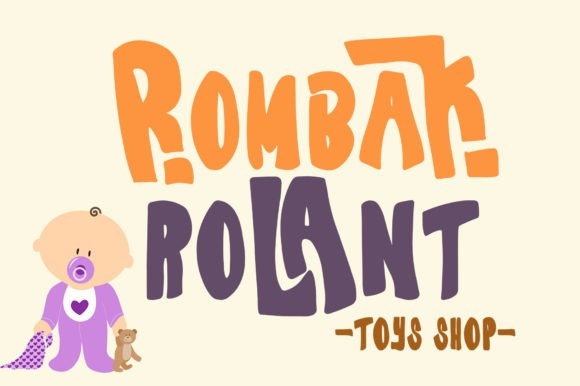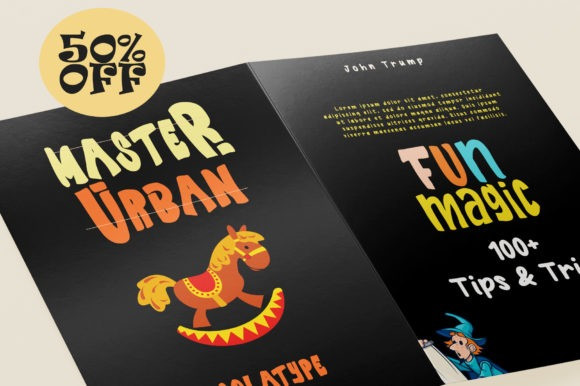
Marx Hilton is a cool and casual display font. Whether you use it for cartoon related designs, children games or just any creation that requires a lovely touch, this font will be an amazing choice.
| Classification: | Display Fonts, Playful / Fun Fonts |